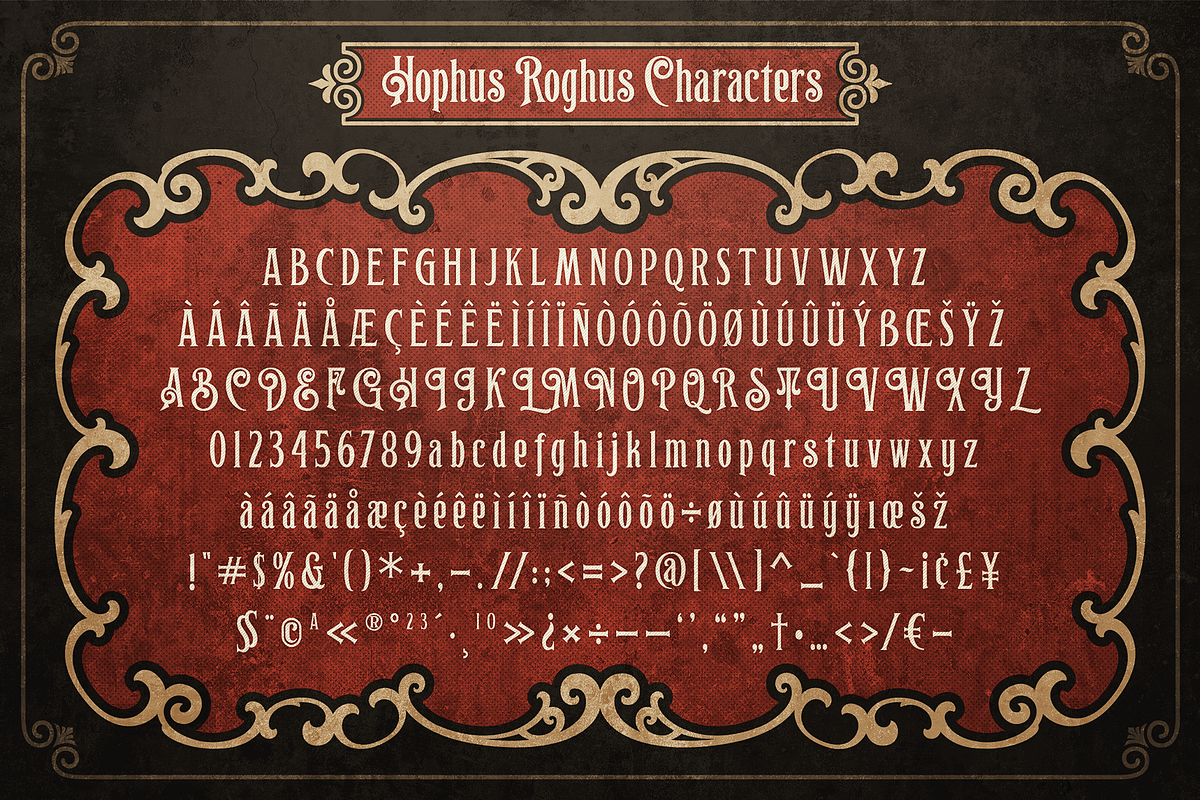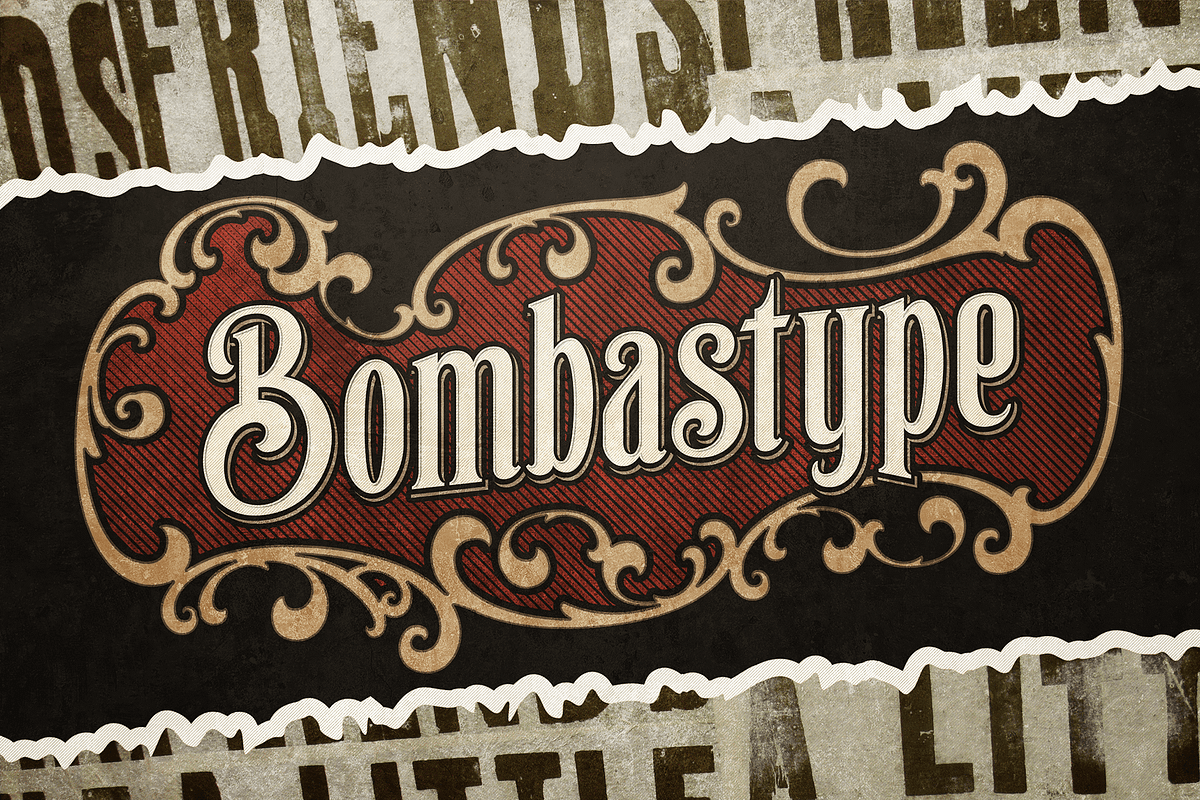
Hophus Roghus - Layered & Ornaments
Hophus Roghus is a Display Serif font. Inspired by vintage brewery logos. This font came up with layer system as well. Regular, Inset and Shadow. You need to unlock the uppercase alternative character for the main course. This font will suitable for your any design needs. Like branding, logo, sign, header, etc. So final question , what are you waiting for just looking around like that ? Buy this font asap so your urge will fulfilled.